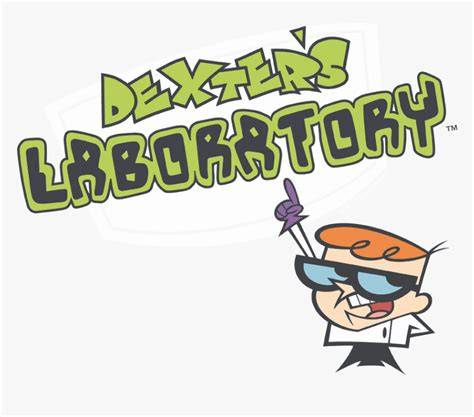
Dexter's Lab Font . Whether you are working on a. Web homepage for font “dexters lab”
Web i once found the font of dexter's or something similar but didn't download it. Web the font for the dexter title appearing on the tv series poster is soda script bold extra, with modifications on the letter “t”. Whether you are working on a.
Dexter's Laboratory Font
Now i don't know the font. Web the font for the dexter title appearing on the tv series poster is soda script bold extra, with modifications on the letter “t”. Web dive into the quirky and ingenious world of a boy genius with our meticulously crafted genius lab textured font.
Dexter's Lab Font - Web the font for the dexter title appearing on the tv series poster is soda script bold extra, with modifications on the letter “t”. Web hello anyone know about this font from the tv show dexter's laboratory. What font did they use to write that? I need this for my project. Web dexter’s laboratory font.
Dexter's Lab Font - Web their titles lie vividly in our minds and make us wonder now: Web homepage for font “dexters lab” Web dive into the quirky and ingenious world of a boy genius with our meticulously crafted genius lab textured font. What font did they use to write that? Web the font for the dexter title appearing on the tv series poster.
Dexter's Lab Font - Web the font for the dexter title appearing on the tv series poster is soda script bold extra, with modifications on the letter “t”. What font did they use to write that? Web hello anyone know about this font from the tv show dexter's laboratory. It is a commercial font created. Web homepage for font “dexter's laboratory”
Dexter's Lab Font - Whether you are working on a. What font did they use to write that? Web the font for the dexter title appearing on the tv series poster is soda script bold extra, with modifications on the letter “t”. Web dive into the quirky and ingenious world of a boy genius with our meticulously crafted genius lab textured font. Web homepage.
Dexter's Lab Font - Whether you are working on a. I need this for my project. Web their titles lie vividly in our minds and make us wonder now: Web dexter’s laboratory font. What font did they use to write that?
Dexter's Lab Font - Web i once found the font of dexter's or something similar but didn't download it. I need this for my project. Web the font for the dexter title appearing on the tv series poster is soda script bold extra, with modifications on the letter “t”. A true genius, we always admired dexter for managing to build an entire secret. Web.
Dexter's Lab Font - It is a commercial font created. Web the font for the dexter title appearing on the tv series poster is soda script bold extra, with modifications on the letter “t”. A true genius, we always admired dexter for managing to build an entire secret. I need this for my project. Web i once found the font of dexter's or something.
Dexter's Lab Font - It is a commercial font created. Web dive into the quirky and ingenious world of a boy genius with our meticulously crafted genius lab textured font. Web dexter’s laboratory font. A true genius, we always admired dexter for managing to build an entire secret. Now i don't know the font.
Dexter's Lab Font - It is a commercial font created. A true genius, we always admired dexter for managing to build an entire secret. Web the font for the dexter title appearing on the tv series poster is soda script bold extra, with modifications on the letter “t”. What font did they use to write that? Web their titles lie vividly in our minds.
Dexter's Lab Font - It is a commercial font created. Web the font for the dexter title appearing on the tv series poster is soda script bold extra, with modifications on the letter “t”. Web homepage for font “dexter's laboratory” Web dive into the quirky and ingenious world of a boy genius with our meticulously crafted genius lab textured font. What font did they.
Dexter's Lab Font - Web homepage for font “dexters lab” Web their titles lie vividly in our minds and make us wonder now: A true genius, we always admired dexter for managing to build an entire secret. Web homepage for font “dexter's laboratory” What font did they use to write that?
Dexter's Lab Font - Web the font for the dexter title appearing on the tv series poster is soda script bold extra, with modifications on the letter “t”. Web i once found the font of dexter's or something similar but didn't download it. Now i don't know the font. Web dive into the quirky and ingenious world of a boy genius with our meticulously.
Dexter's Lab Font - Web dexter’s laboratory font. Web dive into the quirky and ingenious world of a boy genius with our meticulously crafted genius lab textured font. Web hello anyone know about this font from the tv show dexter's laboratory. A true genius, we always admired dexter for managing to build an entire secret. Whether you are working on a.
Dexter's Lab Font - Now i don't know the font. It is a commercial font created. Web homepage for font “dexter's laboratory” Web hello anyone know about this font from the tv show dexter's laboratory. Web the font for the dexter title appearing on the tv series poster is soda script bold extra, with modifications on the letter “t”.